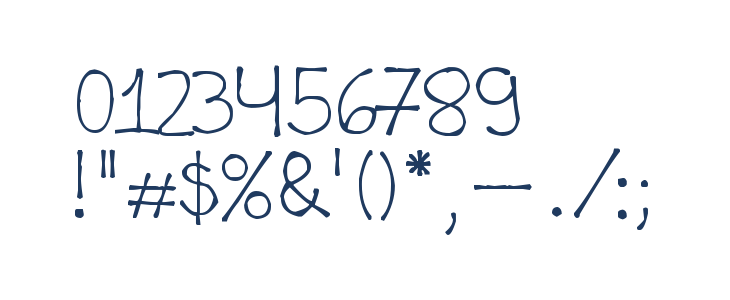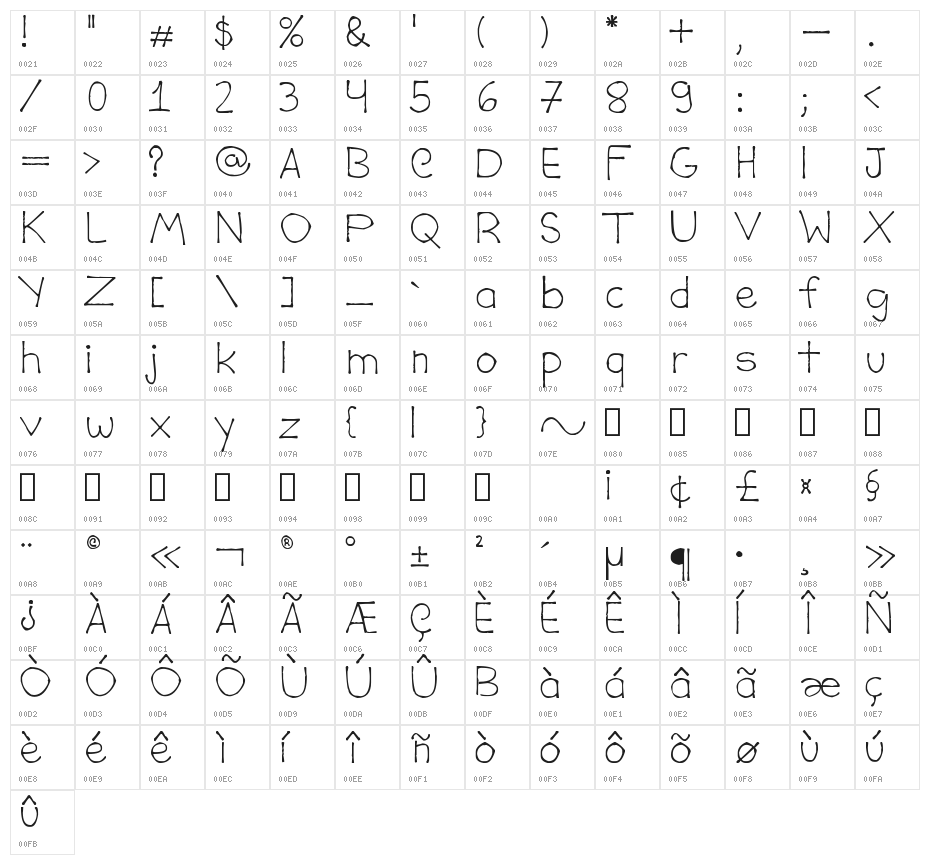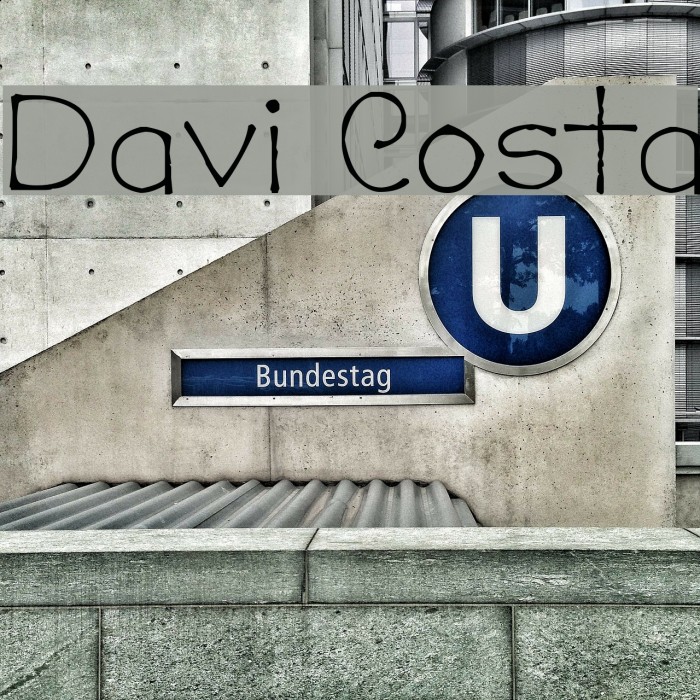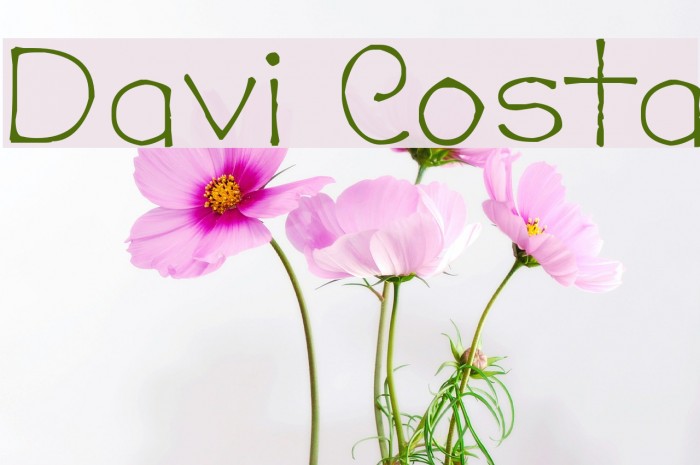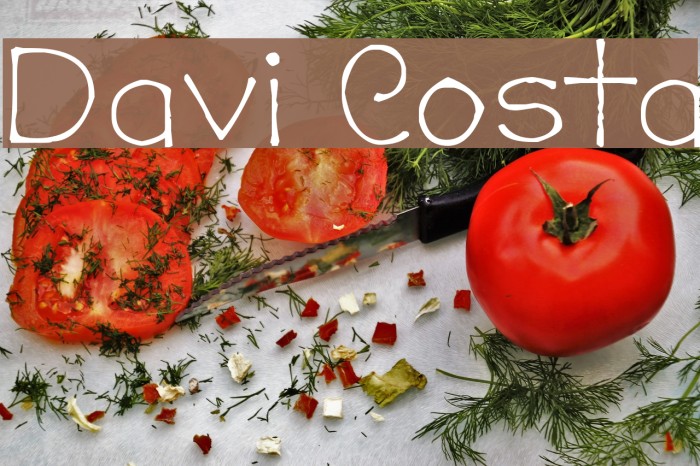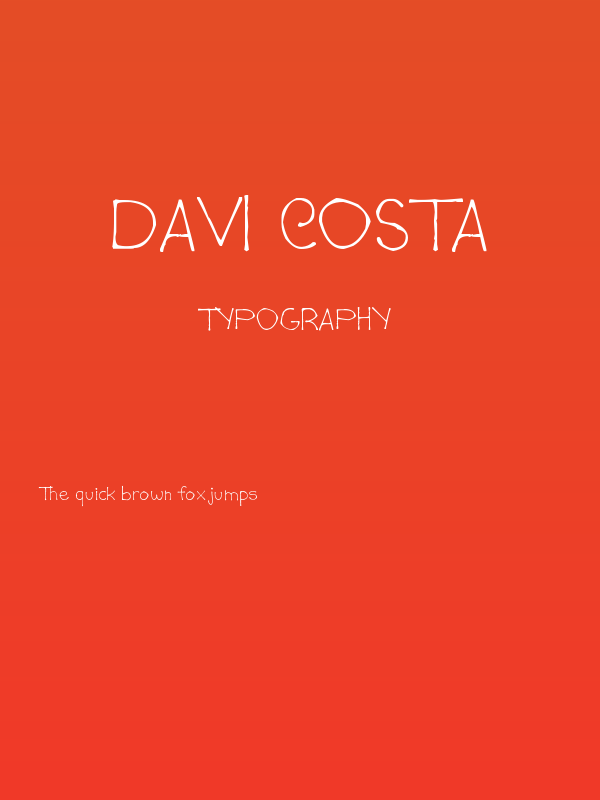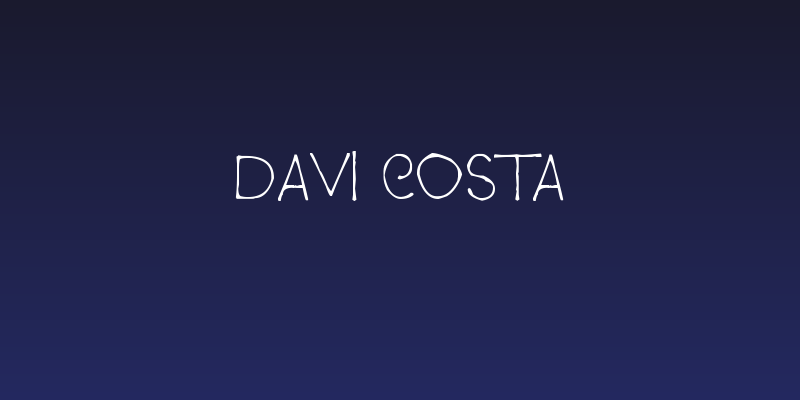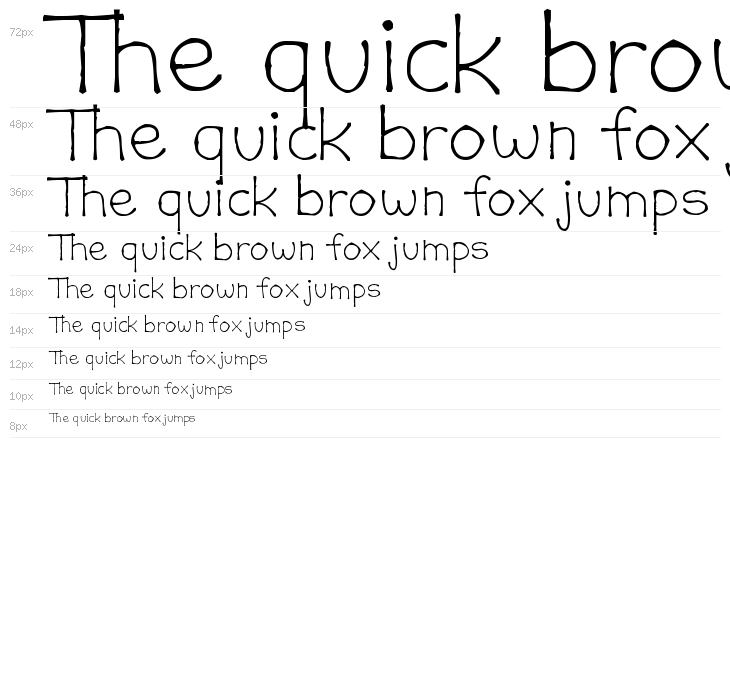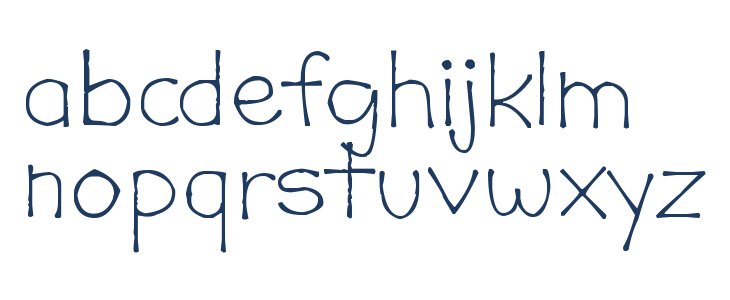
Davi Costa Font
Davi Costa Description
This font features a playful and informal handwritten style, characterized by its uneven strokes and slightly irregular shapes. The letters have a casual, organic feel, with varying line thickness that adds a dynamic and lively touch. The uppercase and lowercase letters maintain a consistent style, with rounded edges and a slightly whimsical appearance. The numbers and special characters follow the same playful design, making the font suitable for creative and informal projects. Its unique style is reminiscent of hand-drawn lettering, perfect for adding a personal touch to any design.
| Proposed Projects | Ideal for greeting cards, children's books, playful branding, and creative invitations. |